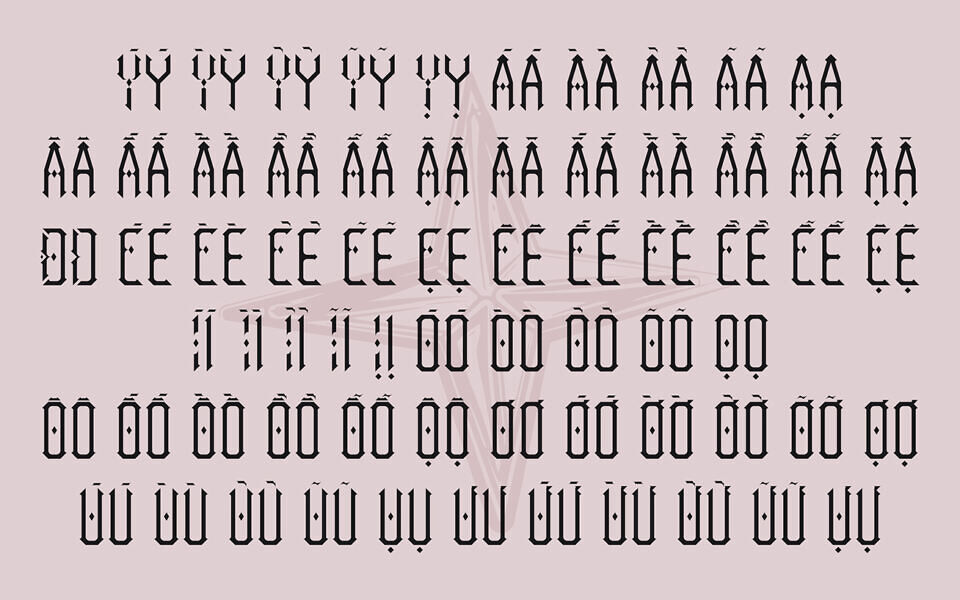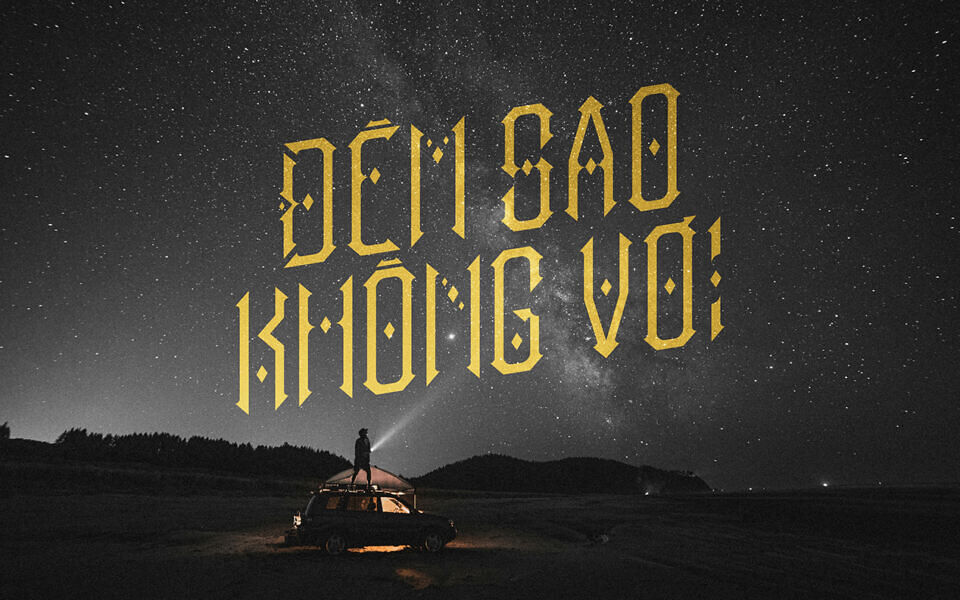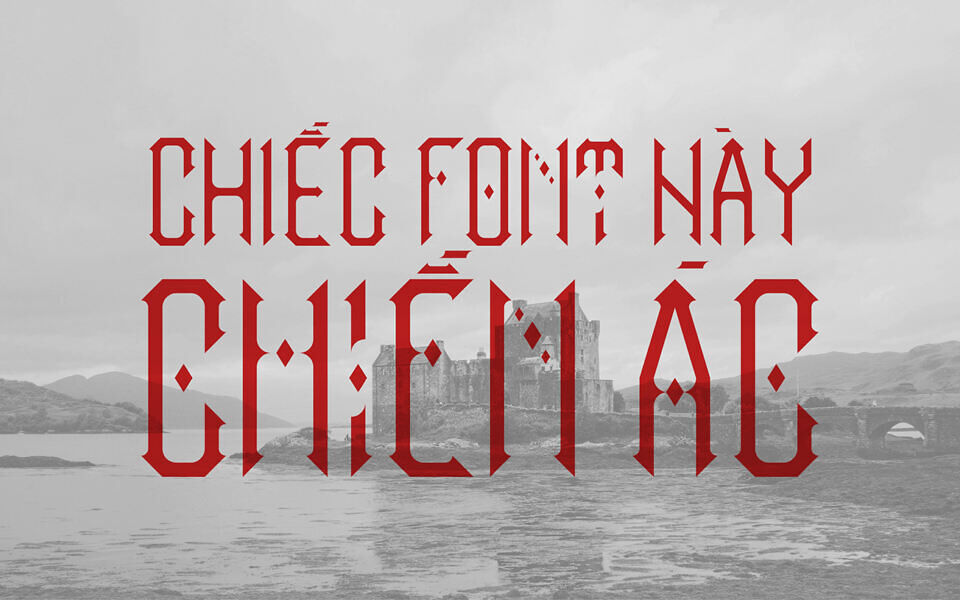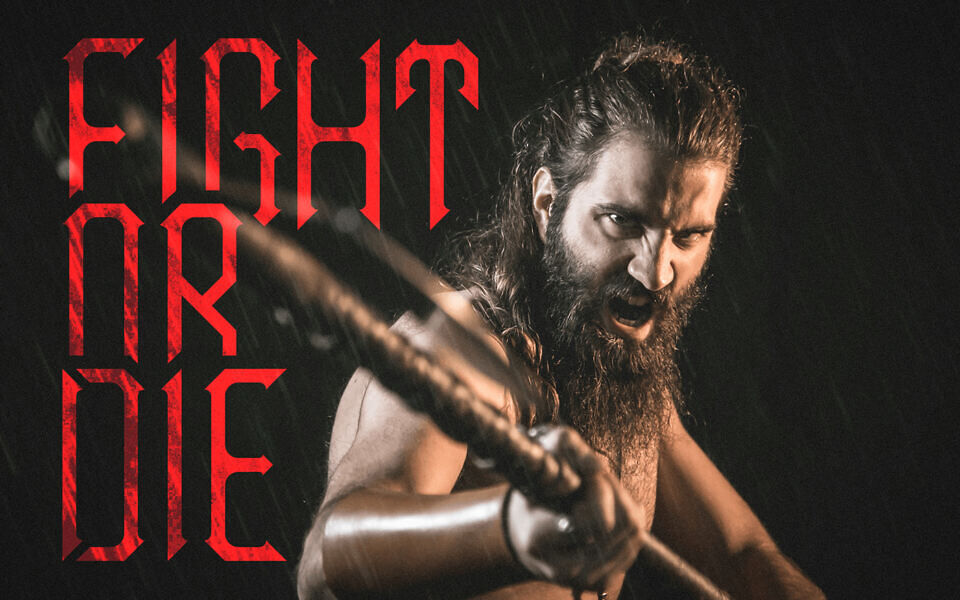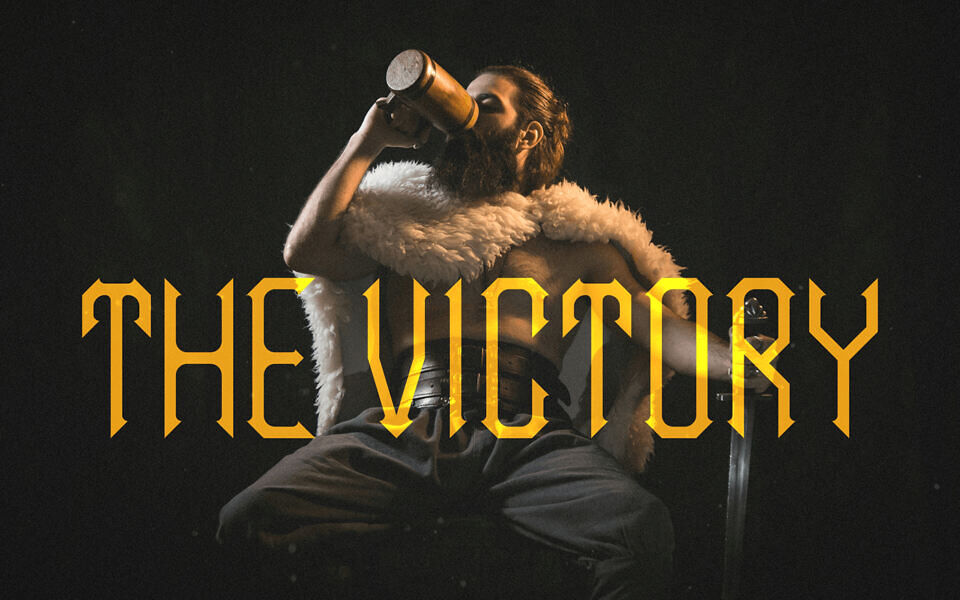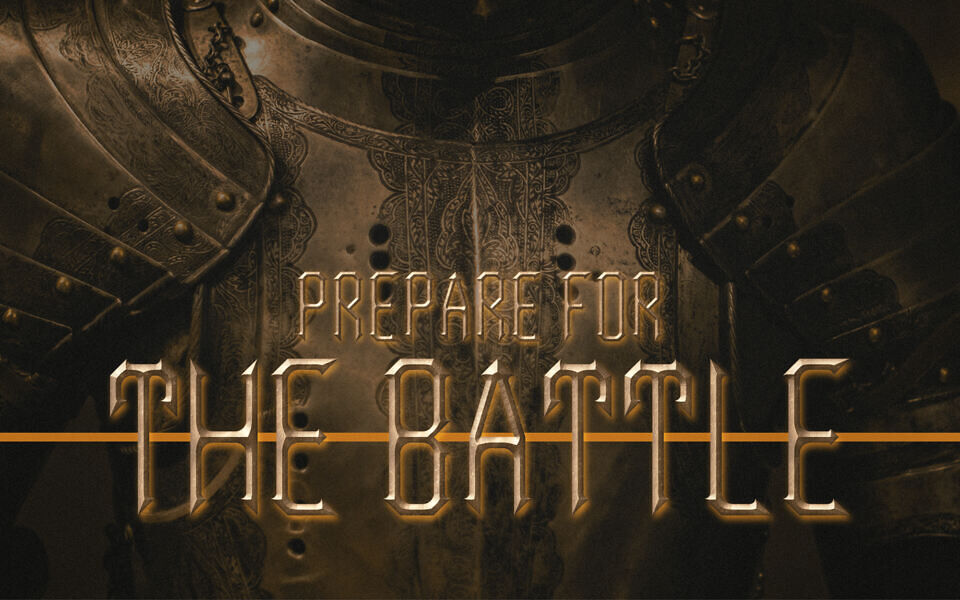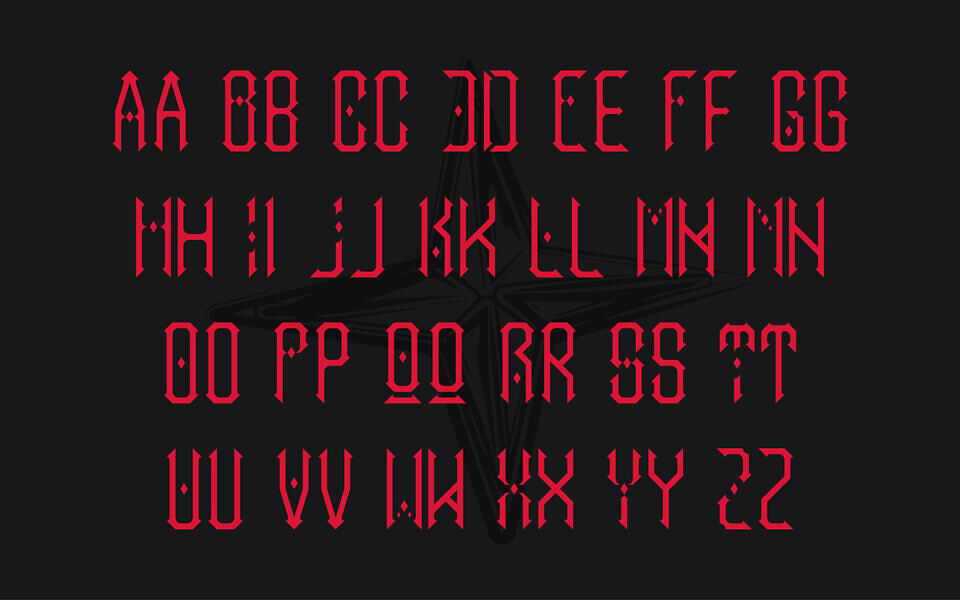
Starlance Font
Starlance is a free bold, gothic-inspired display font designed by Linh Dan. Its sharp, angular forms and decorative flair create a striking, medieval aesthetic ideal for posters, branding, and editorial design.